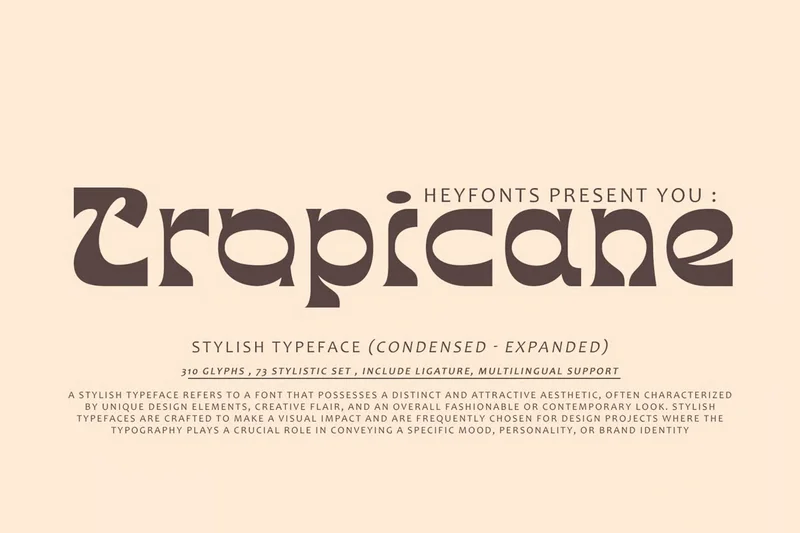
Tropicane – Stylish Typeface
refers to a font that possesses a distinct and attractive aesthetic, often characterized by unique design elements, creative flair, and an overall fashionable or contemporary look. Stylish typefaces are crafted to make a visual impact and are frequently chosen for design projects where the typography plays a crucial role in conveying a specific mood, personality, or brand identity. Here’s an in-depth explanation of the characteristics and significance of a stylish typeface
Ligatures & Alternates
Numeral & Punctuation